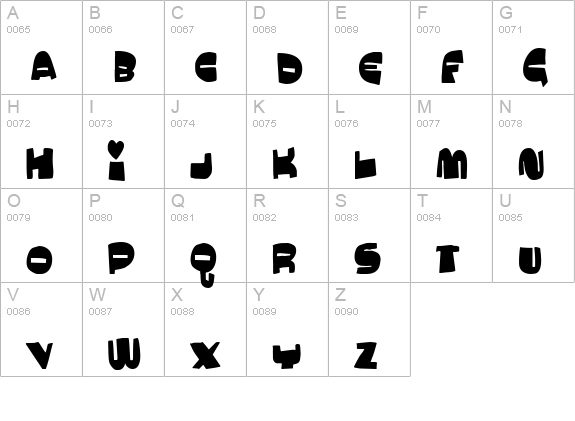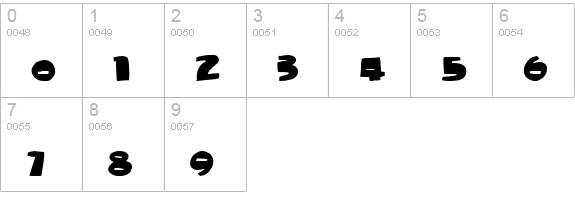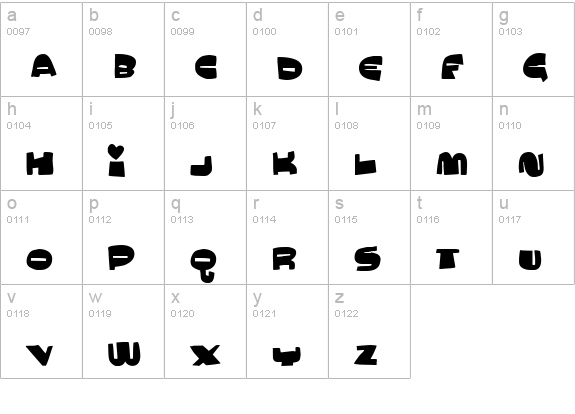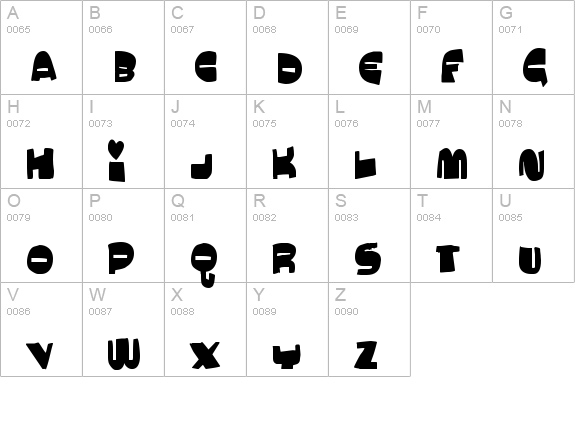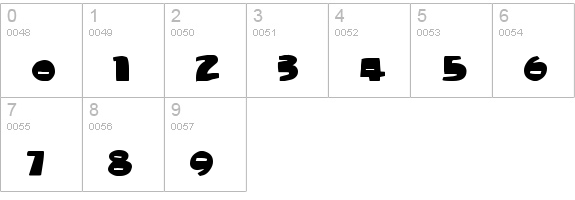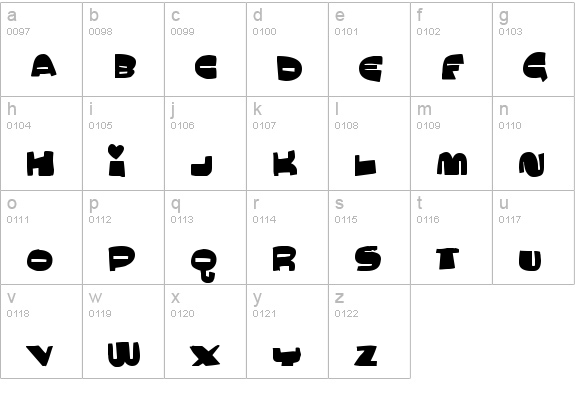
MuchoMacho Font Details
MuchoMacho font is a bold and powerful typeface that exudes confidence and strength. Its thick lines and sharp edges make a statement, perfect for conveying a sense of masculinity and vigor. This versatile font can be used for a variety of design projects, from posters to logos to branding materials. The best part? MuchoMacho font is absolutely free to download at FontsMarket.com. Embrace the boldness of MuchoMacho and make a strong impact with your designs today.